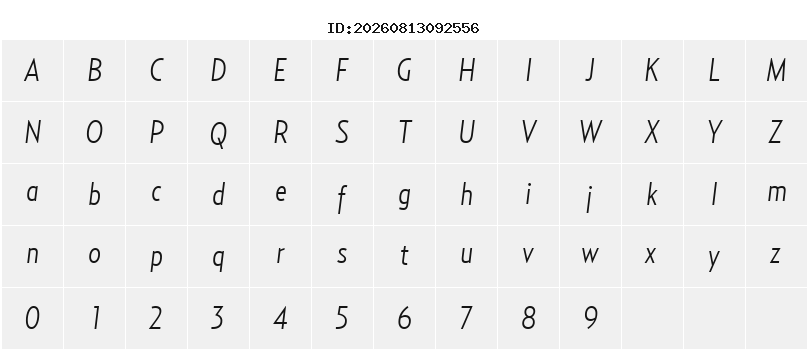
RelayCond-LightItalic Preview
• Font Name: RelayCond-LightItalic
• Font ID: TheFontBureau,Inc: RelayCond-LightItalic: 2002
• Full Font Name: RelayCond-LightItalic
• Version: Version 1.0; 2002; initial release
• PostScript Name: RelayCond-LightItalic
• Character Count: 250
• Designer: Cyrus Highsmith
About RelayCond-LightItalic.ttf
RelayCond-LightItalic.ttf is a modern, elegant sans-serif font designed for ultimate readability and visual harmony. Perfect for branding, headlines, web design, and print materials.